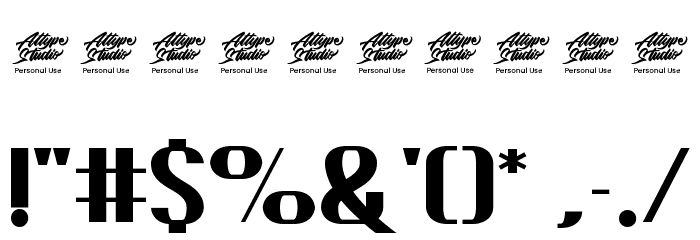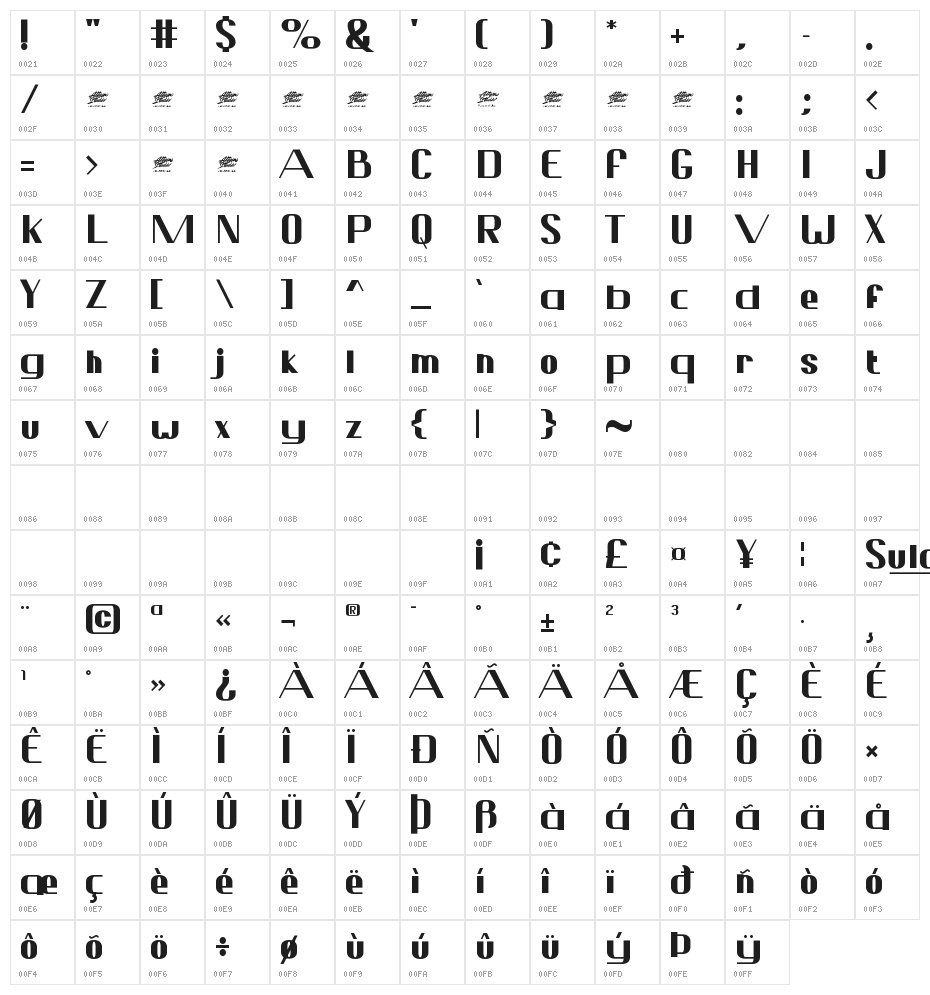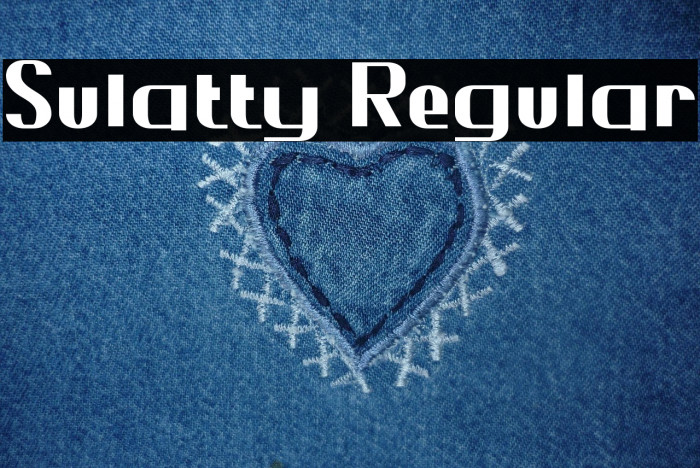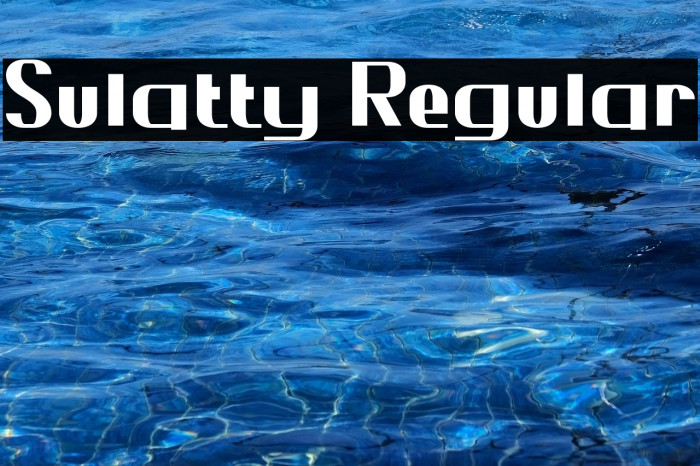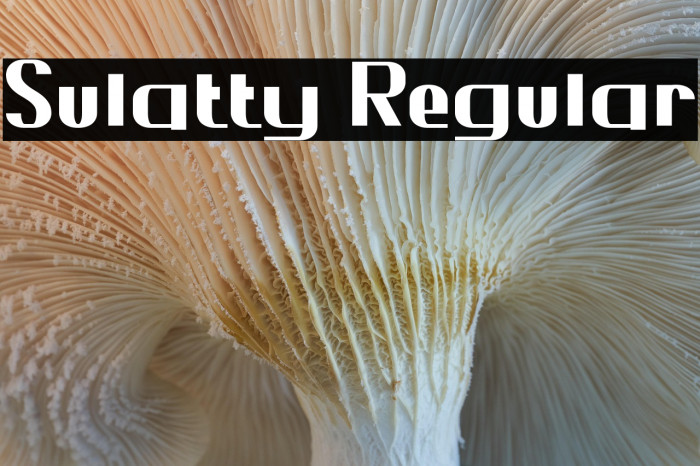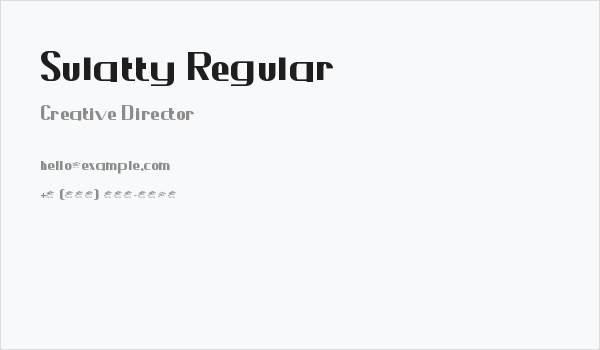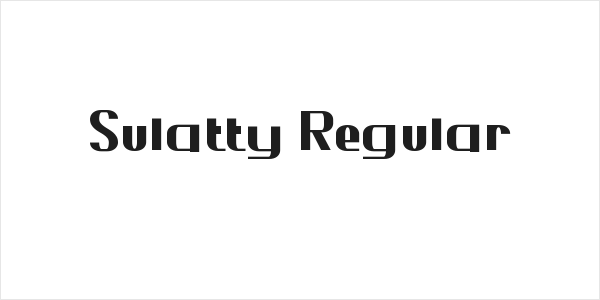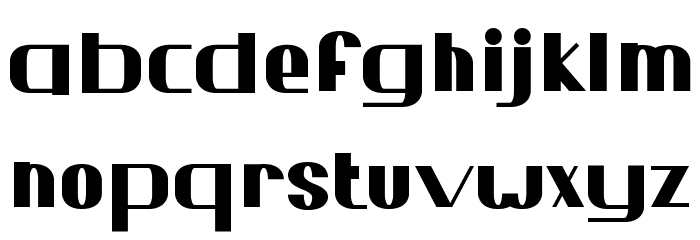
Sulatty Regular Font
Sulatty Regular Description
This font features a bold and modern design with a unique blend of geometric and angular elements. The uppercase letters exhibit a striking presence with sharp edges and a distinct slant, creating a sense of movement and dynamism. The lowercase letters maintain a consistent style, offering a harmonious balance between the bold strokes and the subtle curves. The numbers and special characters are crafted with the same attention to detail, ensuring a cohesive look across all elements. This font's design is both eye-catching and versatile, making it suitable for a variety of creative applications.